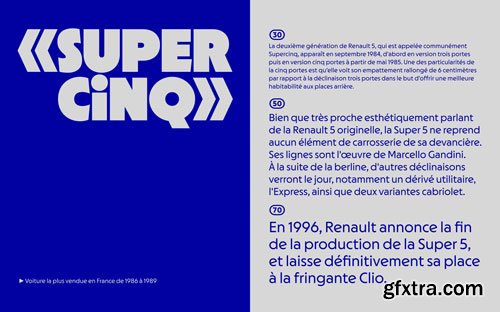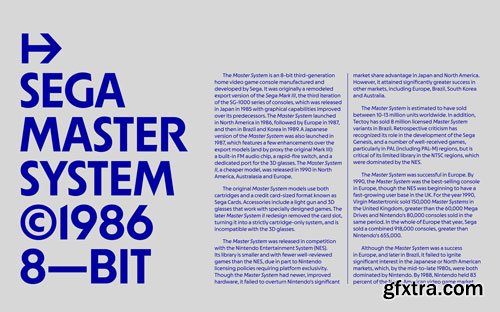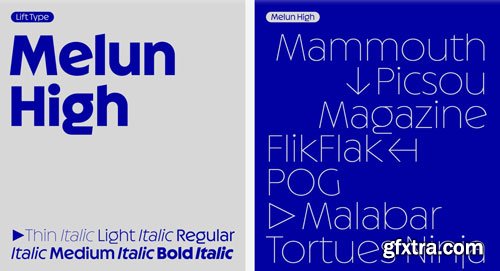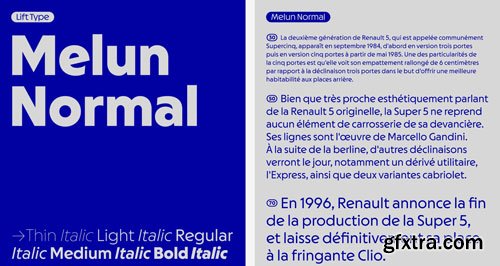
The Melun family is a geometric sans-serif with retro influences, presented in 3 subfamilies. Melun (Normal), available in 5 weights + italics. Melun High, a semi-display version with a high x-height, also in 5 weights + italics. And Melun Display, with much more radical shapes, available in 6 weights.